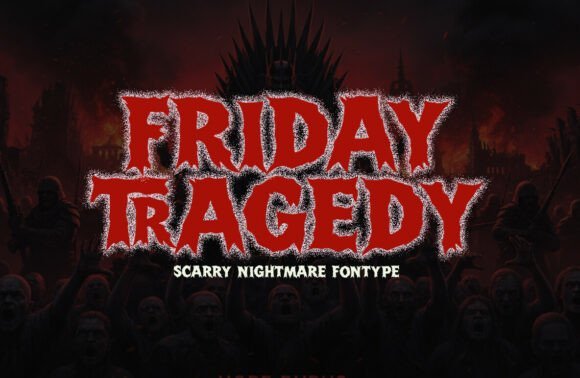
When Horror Meets Design: Unveiling the Frightful Friday Tragedy Font
Have you ever stared at a horror movie poster and felt the thrill of fear mixed with excitement? I’m sure many of us have experienced that rush, and it’s exactly what inspired the creation of the Friday Tragedy Font. This hand-drawn horror font is designed to transport you to a world of terror and dread, where every letter feels like a desperate scream in the darkness.
For designers looking to create an atmosphere of fear and suspense, the Friday Tragedy Font is a valuable tool. Its raw and frantic strokes evoke the feeling of a nightmare come to life, making it perfect for movie titles, thriller book jackets, and Halloween invitations. Whether you’re a seasoned designer or just starting out, this font is sure to add a chilling touch to your work.
Friday Tragedy Font Key Features
- Font Family: Friday Tragedy Font is a unique, custom-designed font family.
- Unique Characteristics: Features an eerie, distressed aesthetic with a mix of modern and vintage elements, adding a touch of mystery and intrigue to any design.
Review of “Friday Tragedy Font”
I must say, I’m quite impressed with “Friday Tragedy Font” overall. ✨ The font has a unique, distressed look that’s perfect for adding a touch of drama and emotion to your designs. It’s great for creating a sense of nostalgia or retro feel.
The font is highly customizable, allowing you to adjust the weight, spacing, and style to fit your needs. ✨ This level of control is fantastic for designers who want to fine-tune their designs to perfection.
- Unique, distressed look that adds drama and emotion
- Highly customizable with adjustable weight, spacing, and style
- Perfect for creating a sense of nostalgia or retro feel
- May be too bold or overwhelming for some designs
- Not ideal for large blocks of text, as the distressed look can be tiring to read
- Limited compatibility with some operating systems or devices
Overall, I’d give “Friday Tragedy Font” 4 out of 5 stars. While it’s not perfect, it’s a fantastic addition to any designer’s toolkit. With a little creativity and restraint, this font can help take your designs to the next level.
The Friday Tragedy Font is a distressed, horror-themed font that can add a spooky touch to your designs. To use it, you can apply it in various graphic design and presentation software.
Tips for Getting the Most Out of the Friday Tragedy Font
Experiment with different font sizes, colors, and effects to achieve the desired look.
Combine the font with other horror-themed elements, such as creepy images or textures, to create a more immersive experience.
Use the font to create a sense of drama and tension, perfect for presentations or designs related to horror movies, Halloween, or other spooky themes.
Halloween party invitations or decorations
Horror movie posters or trailers
Spooky-themed presentations or slideshows
Creepy social media posts or captions